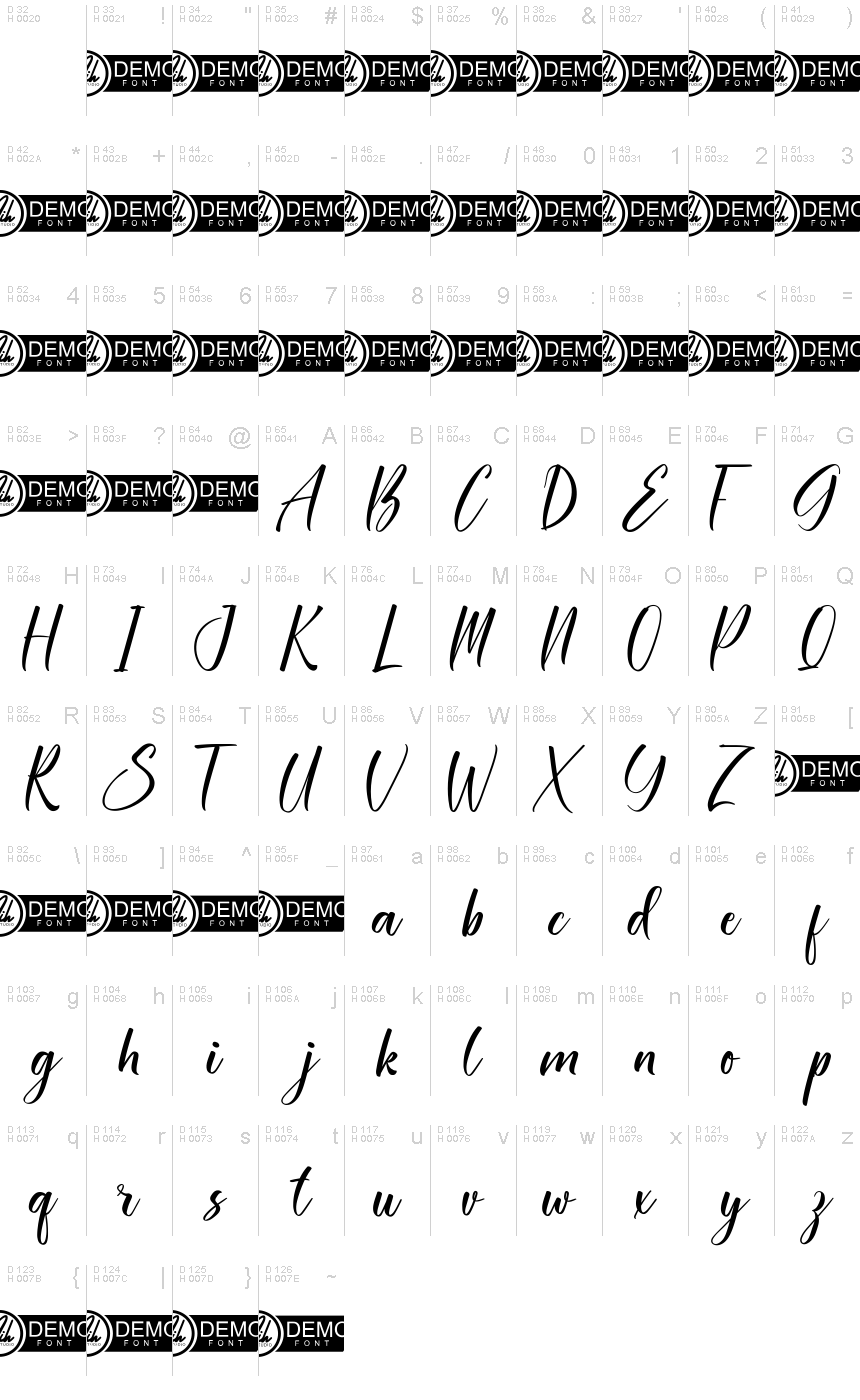
Swarthmore Demo
Swarthmore font, a calligraphy typeface created by NihStudio, showcases elegant low-contrast cursive strokes that seamlessly flow into each other. With smooth lines and decorative details in every glyph, it's a font with a sophisticated appeal. The fluid connections between letters embrace the graceful mood of classic calligraphic styles.
Ideal for use in logos and holiday cards, this font also lends itself well to business cards and wedding invitations. It flawlessly suits formal manuscript and iconic book covers too! Embrace its potential in arts events or educational promotions as well alongside vintage-style restaurant menus where high-quality files are needed because it doesn't disappoint!